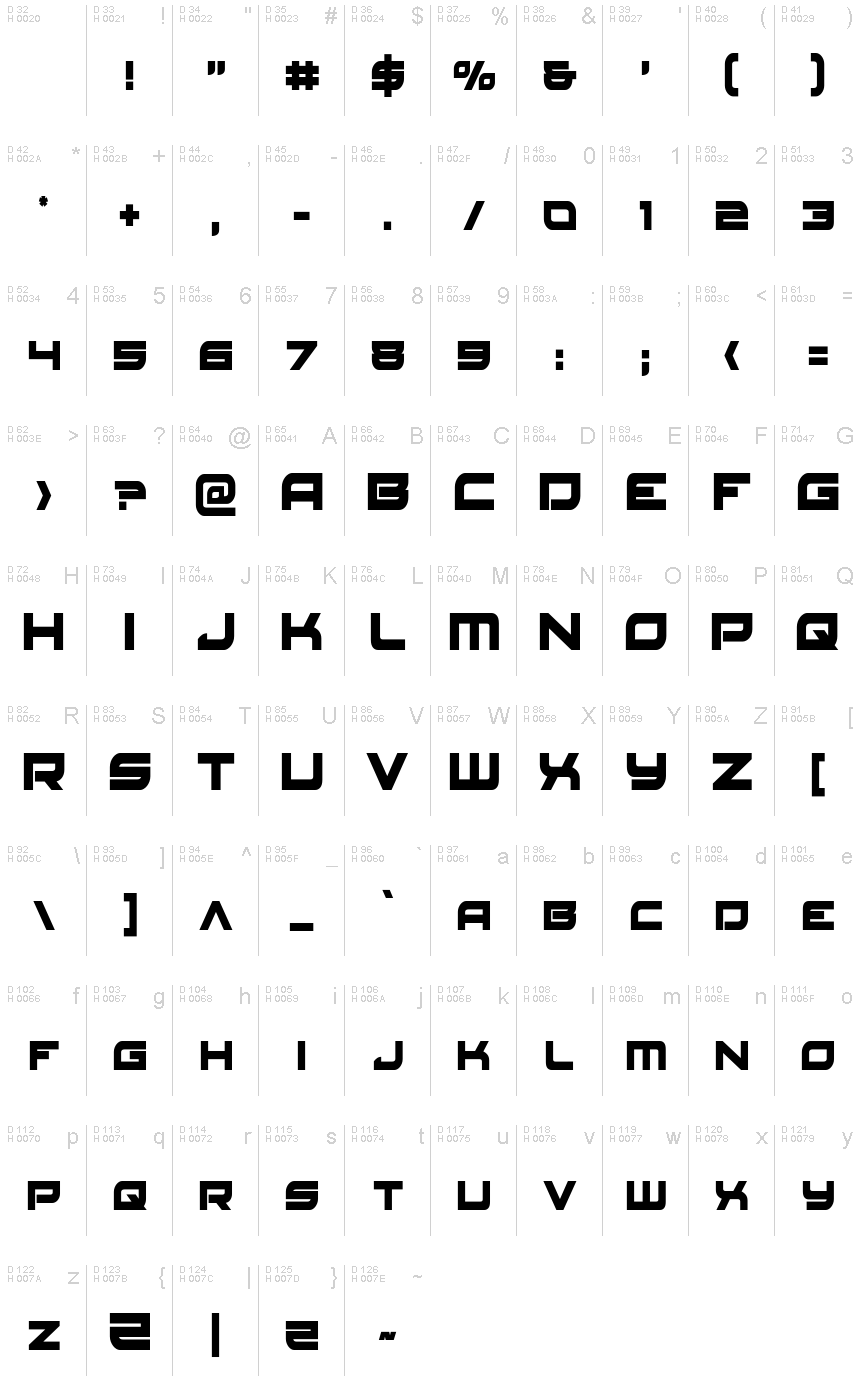
Red Rocket Condensed by Daniel Zadorozny of Iconian Fonts is a free futuristic display font with broad mechanical capitals and an emphatic low-slung profile. Deep cutouts and narrow internal gaps give the dense lettering a sleek machine-made finish.
As a visual centerpiece, it suits arcade title screens, science-fiction posters, and electronic music branding. Its interlocking silhouettes can become part of a vehicle graphic or interface emblem, extending the technological theme beyond ordinary lettering.